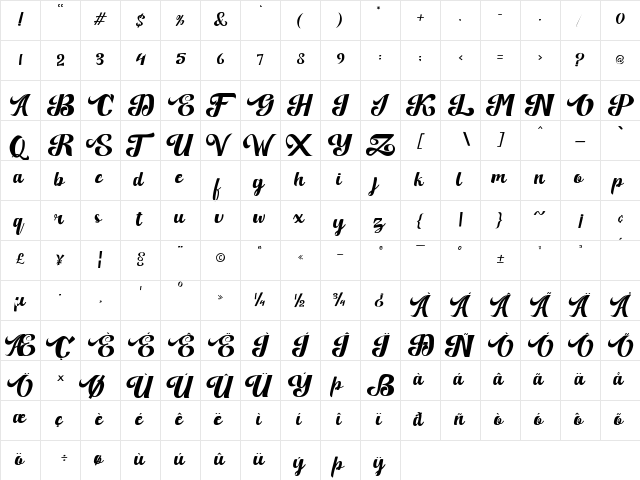
Quillotha Regular
| Foundry | Nur Solikh / Flamde Studio |
| Designer | Nur Solikh |
Design Context for Quillotha Typeface
Quillotha takes a measured approach to typography — its balanced proportions and neutral character make it a reliable workhorse for both digital and print work.